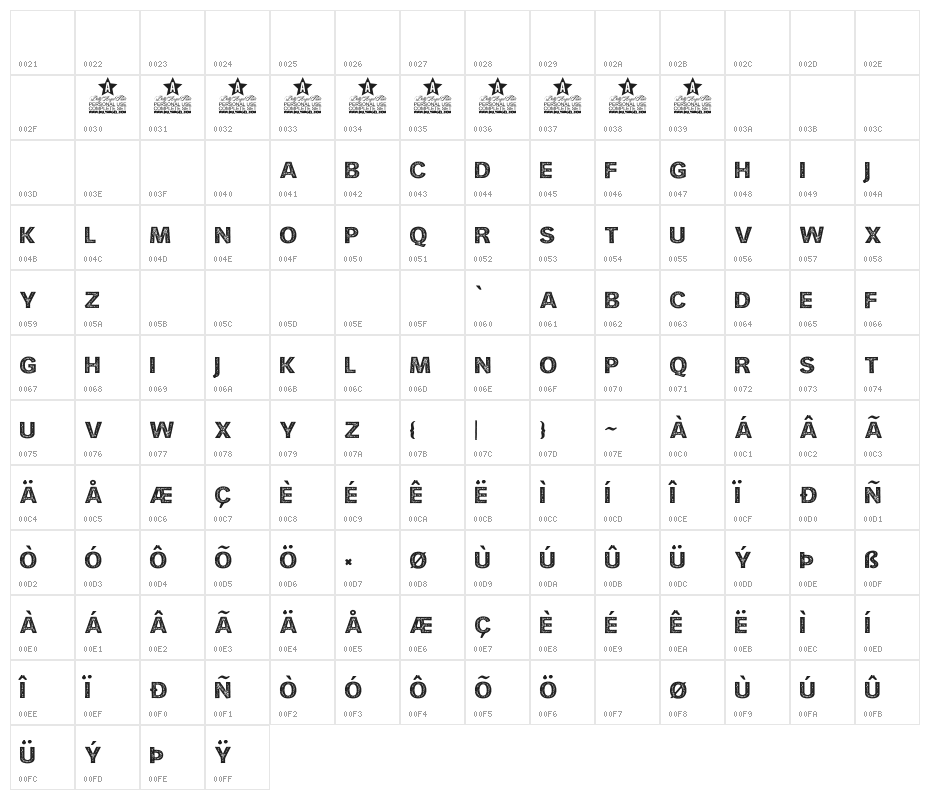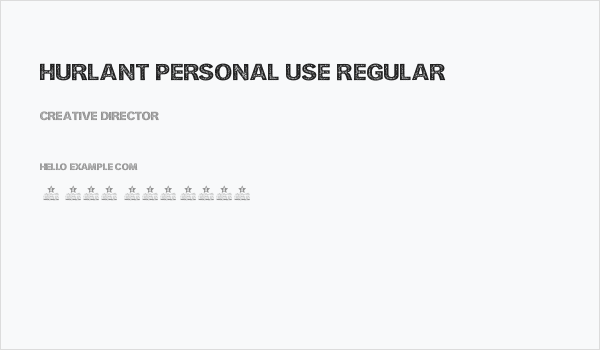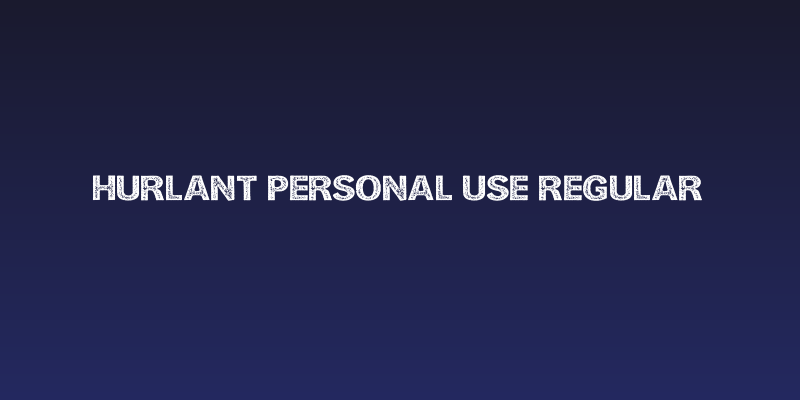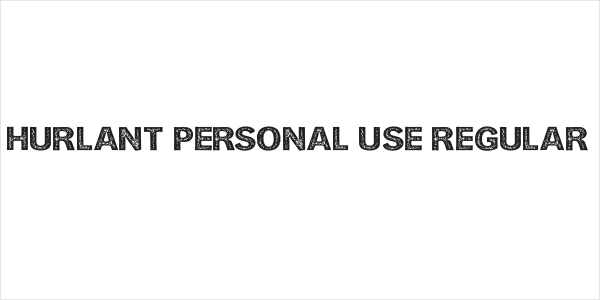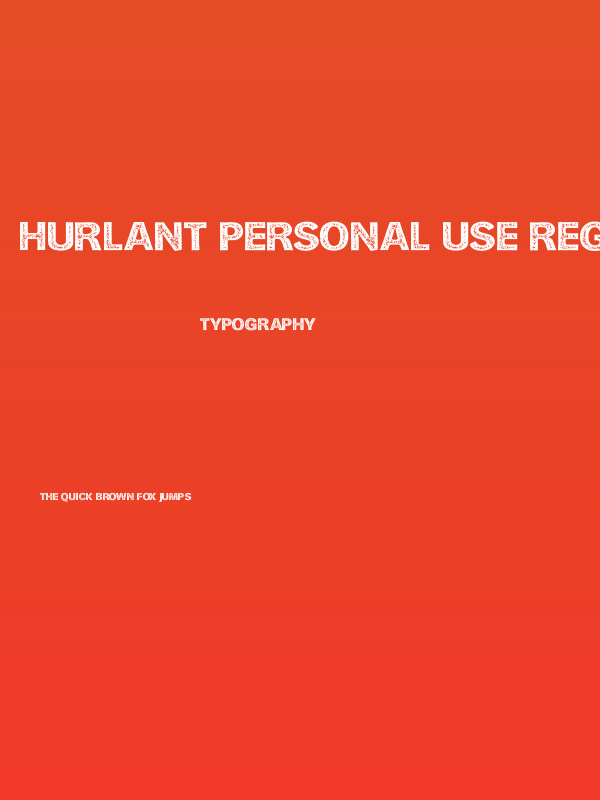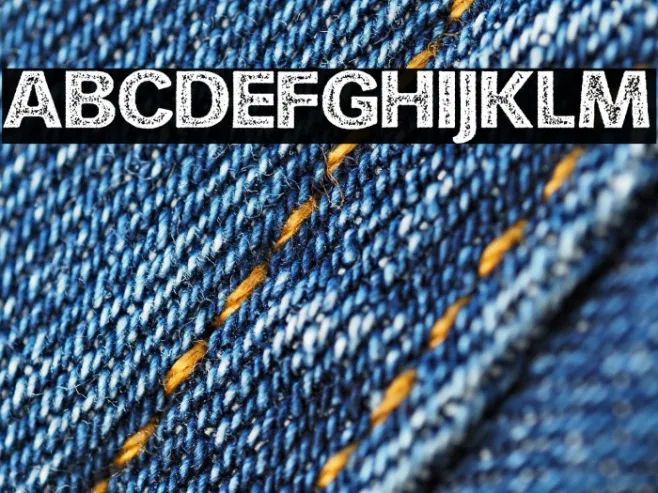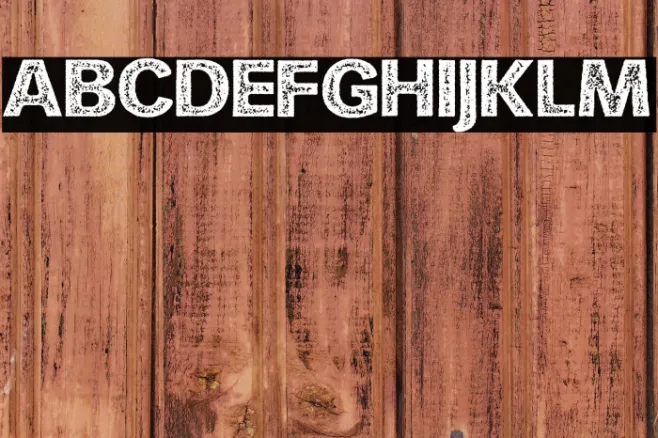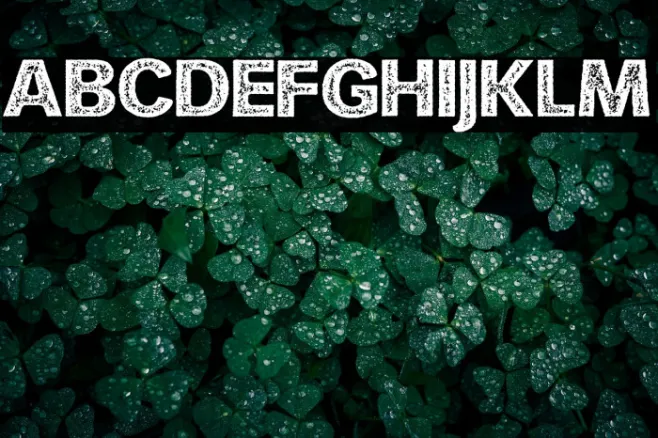
HURLANT PERSONAL USE Regular Font
HURLANT PERSONAL USE Regular Description
This font features a bold, distressed style with a textured appearance that gives it a rugged, vintage feel. The uppercase letters are prominent and impactful, making it ideal for attention-grabbing designs. The texture within each character adds a layer of depth and interest, reminiscent of worn-out prints or weathered surfaces. The font's boldness ensures readability while the distressed effect adds a unique character, making it suitable for creative projects that require a touch of nostalgia or an edgy look.
| Proposed Projects | Perfect for posters, album covers, branding projects, and any design requiring a bold, vintage aesthetic. |